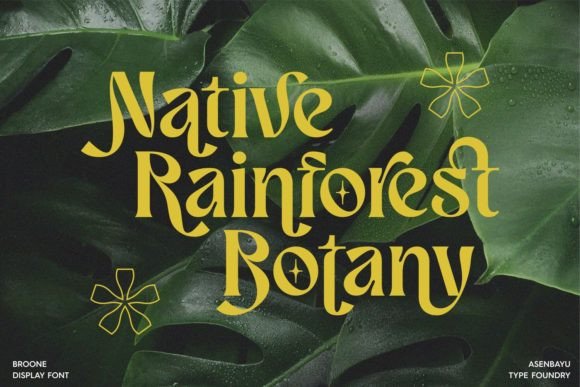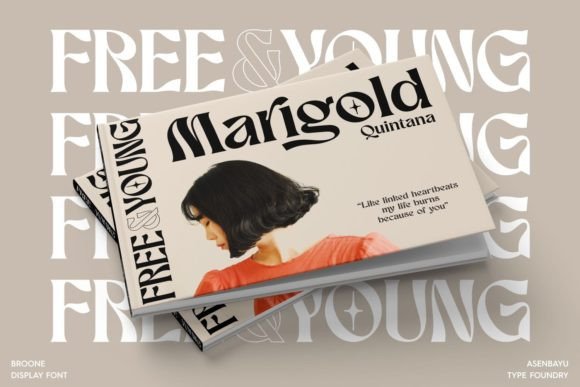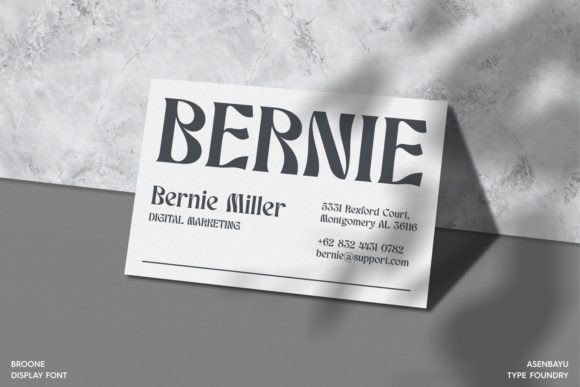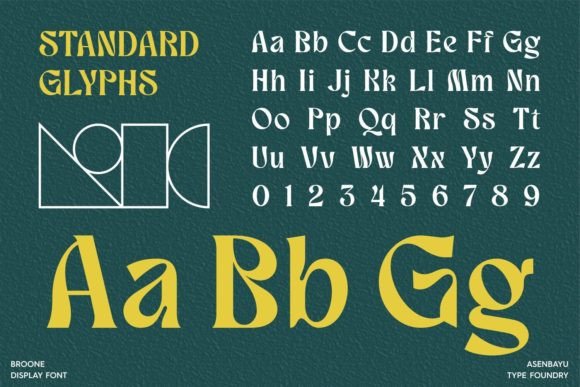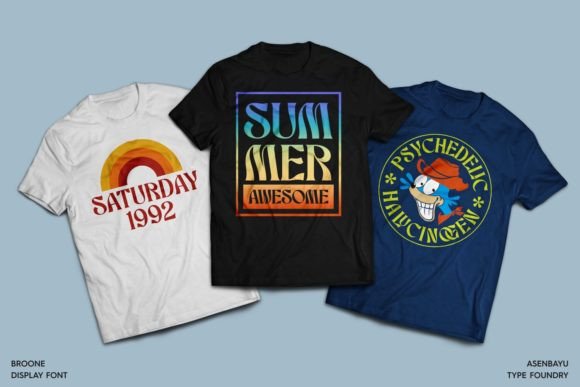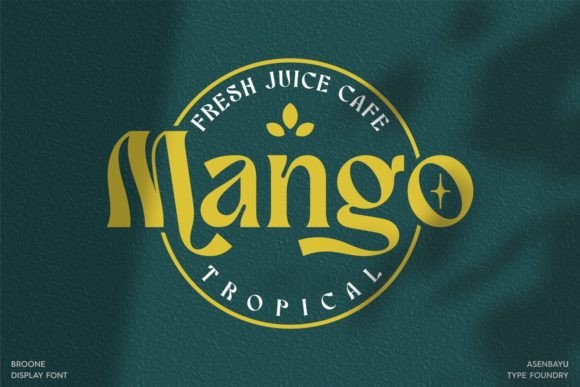
Introducing Broone Font: Elevate Your Designs with a Youthful and Natural Touch
In the world of typography, fonts play a crucial role in conveying the tone and personality of a design. For designers and crafters looking to add a fresh and youthful vibe to their projects, Broone Font is an excellent choice. This stunning, versatile decorative display font is designed to make a statement, and its unique features make it perfect for a wide range of applications.
The Unique Characteristics of Broone Font
Broone Font boasts a distinctive design that combines wavy shapes with serif outlines, creating a captivating visual effect. The proportion of wavy shapes adds a playful and dynamic touch, while the serif outlines provide a sense of sophistication and elegance. This blend of modern and classic elements makes Broone Font an excellent choice for designers seeking to create unique and eye-catching designs.
One of the standout features of Broone Font is its versatility. This font can seamlessly transition between modern and retro designs, making it an excellent addition to any designer’s toolkit. Whether you’re working on a contemporary packaging label design or a vintage-inspired poster, Broone Font can adapt to your needs and elevate your design to the next level.
Broone Font is suitable for a wide range of design projects, including:
- Attractive Packaging Label Designs: Add a touch of personality to your product labels with Broone Font. Its unique design makes it perfect for food labels, beverage labels, and more.
- Unique Logos: Create a memorable brand identity with Broone Font. Its distinctive features make it an excellent choice for logos that need to stand out.
- Poster Designs: Make a statement with your posters using Broone Font. Its bold and playful design is perfect for advertising, events, and more.
- Fashion Designs: Add a touch of glamour to your fashion designs with Broone Font. Its sophisticated and elegant features make it perfect for fashion brands, magazines, and more.
Why Choose Broone Font?
With so many fonts available, why choose Broone Font? Here are just a few reasons:
- Unique Design: Broone Font boasts a distinctive design that will set your projects apart from the rest.
- Versatility: This font can be used in a wide range of design projects, from modern to retro.
- High-Quality: This font is designed to deliver high-quality results, ensuring that your projects look professional and polished.
Broone Font is an exceptional decorative display font that can elevate your designs with a youthful and natural touch. Its unique features, versatility, and ease of use make it an excellent choice for designers and crafters looking to create stunning designs. Whether you’re working on packaging labels, logos, posters, or fashion designs, Broone Font is sure to deliver impressive results. So why wait? Download Broone Font today and take your designs to the next level!
- Stunning, versatile decorative display font
- Wavy shapes with serif outlines
- Youthful and natural touch
- Suitable for modern and retro designs
- Perfect for packaging labels, logos, posters, fashion designs, and more